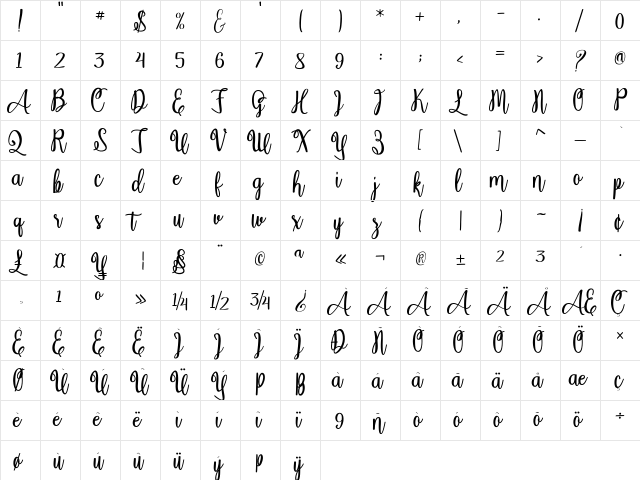
Adelia pasha Regular
| Foundry | Bot kerling |
| Designer | M abbas |
Design Context for Adelia pasha Typeface
Adelia pasha is a composed and adaptable typeface that performs quietly and consistently across a wide range of design contexts.